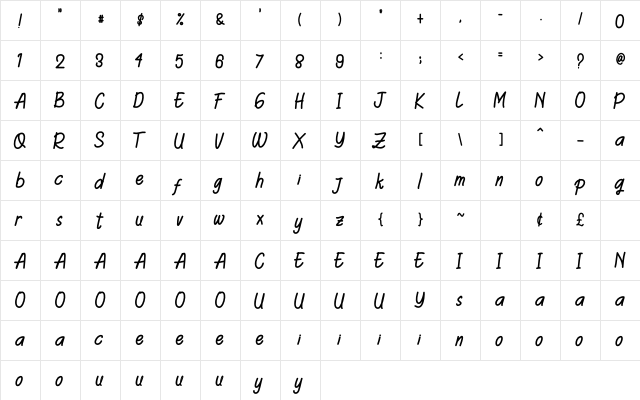
Adelia Shawn Regular
Design Context for Adelia Shawn Typeface
Adelia Shawn is a composed and adaptable typeface that performs quietly and consistently across a wide range of design contexts.
Pro Tip: Use Adelia Shawn in both headline and body roles to test its range before committing to a single application.